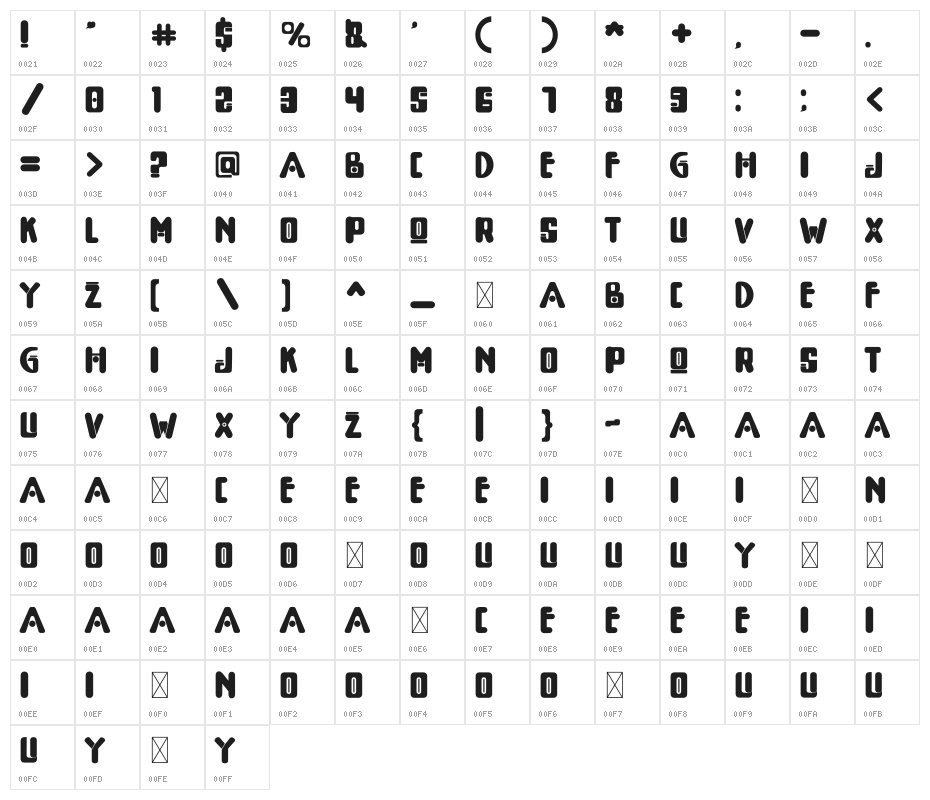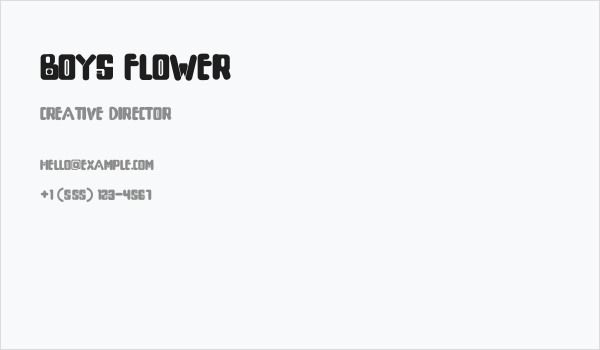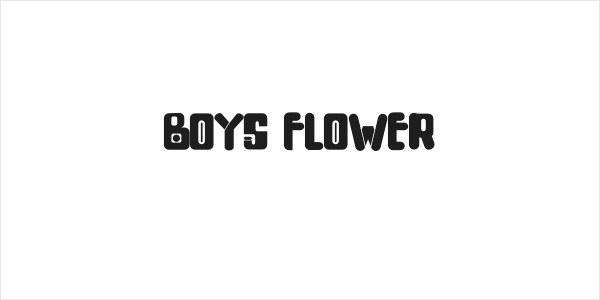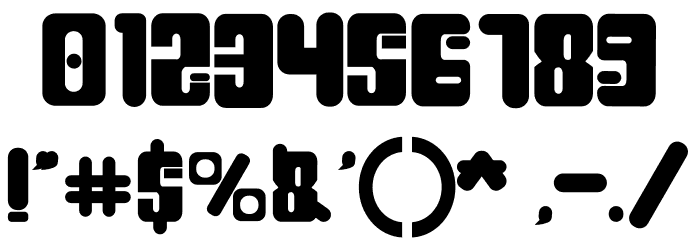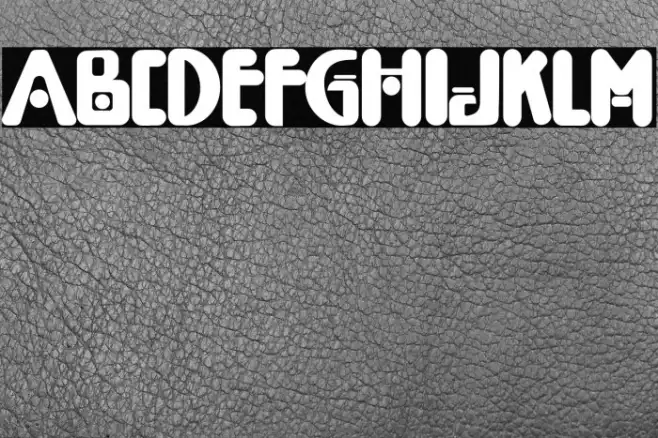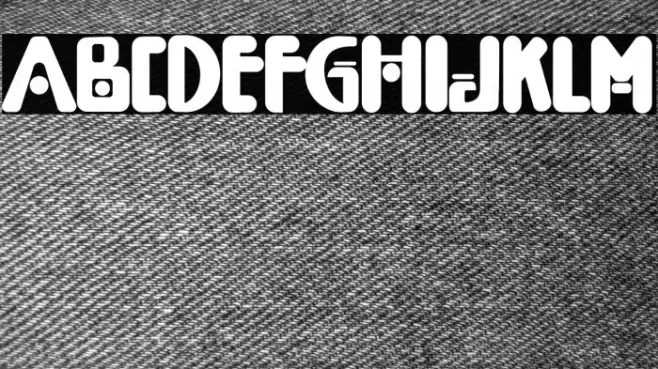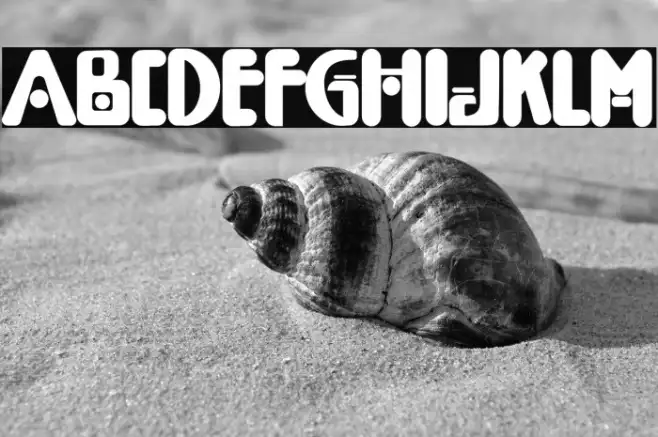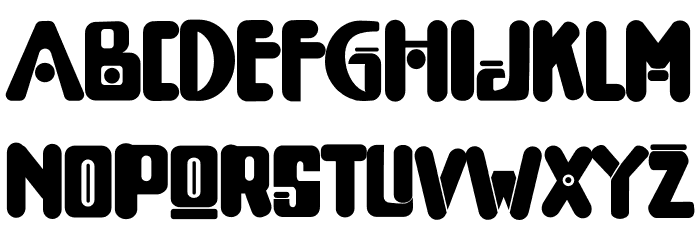
Boys Flower Font
Boys Flower Description
This font features a bold and playful design with a distinct geometric style. The characters are constructed with thick strokes and rounded edges, giving them a friendly and approachable appearance. The use of negative space within certain letters adds a unique touch, making the font stand out. Its boldness ensures high visibility, making it suitable for attention-grabbing designs. The numbers and special characters maintain the same playful and bold aesthetic, ensuring consistency throughout the typeface.
| Overall Style | Playful, Modern |
| Proposed Projects | Ideal for children's book covers, playful branding, posters, and any design requiring a fun and bold statement. |